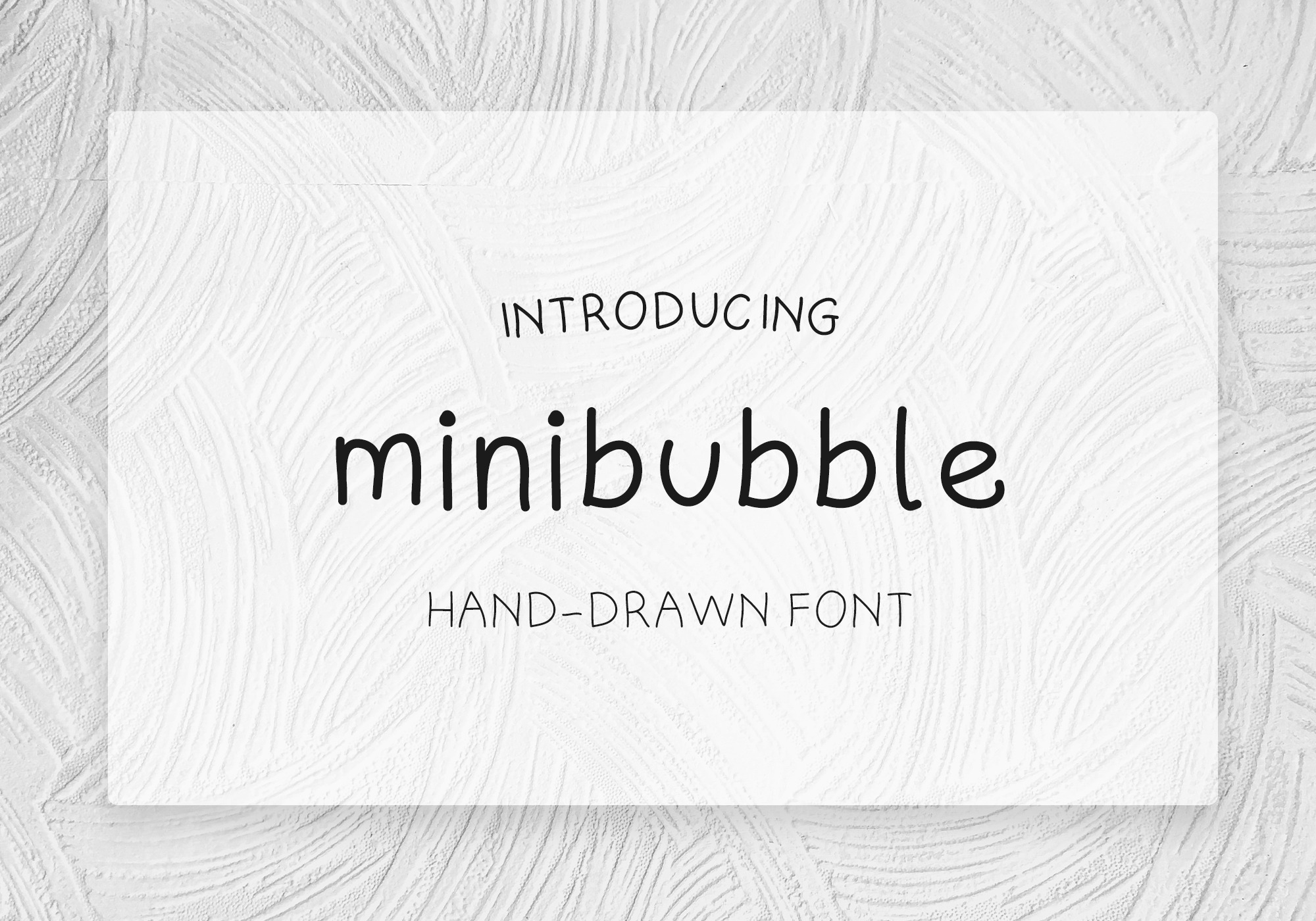
Minibubble Handwritten Classic Font
Minibubble is a free hand drawn handwritten font.
The font is perfect for any kind of digital projects projects, websites, headings, blogs, logos, branding, identity, invitations and more! Minibbuble font comes with upper and lowercase Basic Characters, Numbers, Marks and Punctuation.